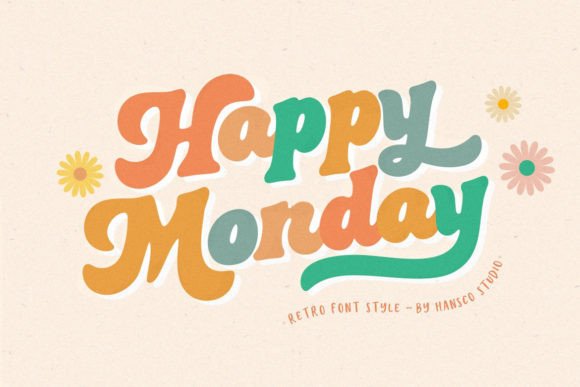
Are you looking for a bold and retro display font to give your design ideas that special touch? Look no further than Happy Monday Font! This beautifully designed font, created by HansCo, is sure to become your go-to for any creative project.
With its bold and eye-catching design, Happy Monday Font is the perfect choice for logos, stickers, packaging designs, and even Cricut projects. It's versatile enough to be used for headlines, brand identities, and even in the t-shirt and apparel industry.
But Happy Monday Font isn't just about looks - it's also incredibly functional. This font is easy to read, making it a great choice for posters, magazines, books, and even social media posts on YouTube and Instagram. It's also fully compatible with websites, so you can add that retro touch to your online presence as well.
One of the best things about Happy Monday Font is its potential to elevate your creative ideas to the highest level. Its masterful design ensures that each and every use of the font will be impactful and memorable.